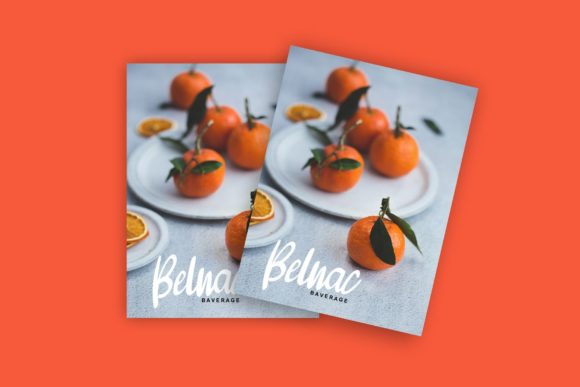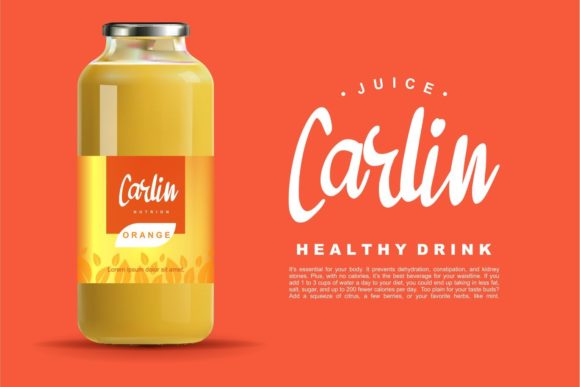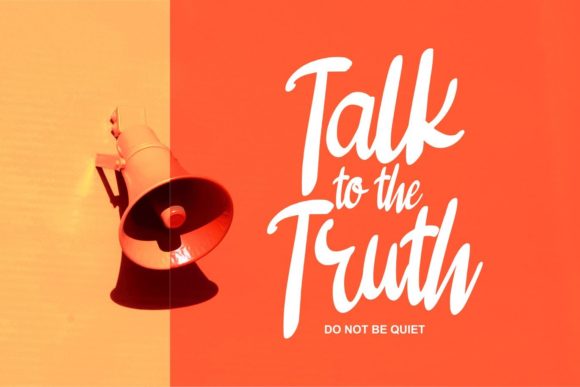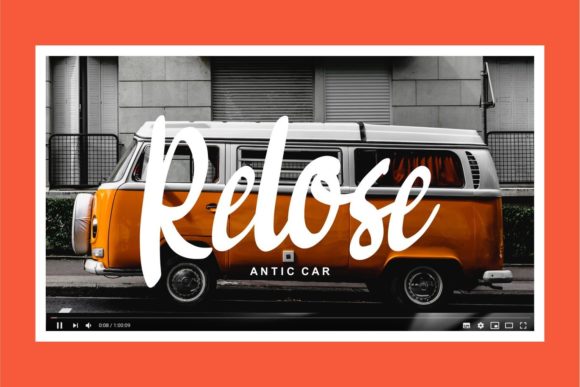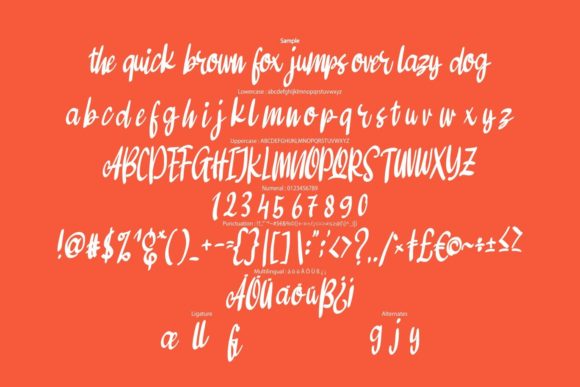
Amenty Script Font: Elevate Your Designs with a Timeless Handwritten Touch
In the world of typography, a well-chosen font can make all the difference in transforming a design from ordinary to extraordinary. For designers and crafters looking to add a personal touch to their creations, Amenty Script font is an excellent choice. This lovely and timeless handwritten font is perfect for creating eye-catching logos, branding, and quotes that capture the essence of elegance and sophistication.
The Unique Charm of Amenty Script
What sets Amenty Script apart from other fonts is its unique and beautiful touch. Every letter is carefully crafted to exude a sense of warmth and personality, making it an ideal choice for designers who want to add a human touch to their designs. The font’s handwritten nature gives it a distinctive, one-of-a-kind feel that is sure to make your designs stand out from the crowd.
Amenty Script font is incredibly versatile, making it suitable for a wide range of design applications. Whether you’re creating a logo, branding materials, or quotes, this font is sure to impress. Its elegant and cursive nature makes it perfect for:
- Logos: Create a lasting impression with a custom logo that showcases your brand’s personality.
- Branding: Develop a consistent visual identity that reflects your brand’s values and style.
- Quotes: Add a touch of sophistication to your inspirational quotes and sayings.
Why Choose Amenty Script Font?
With so many fonts available, why choose Amenty Script? Here are just a few reasons why designers and crafters love this font:
- Timeless appeal: Amenty Script’s classic handwritten style ensures that your designs will remain timeless and relevant for years to come.
- Unique character: Each letter has a distinct personality, making your designs truly one-of-a-kind.
- Elegant and sophisticated: Amenty Script exudes refinement and poise, perfect for designs that require a touch of luxury.
- Easy to read: Despite its elegant nature, Amenty Script remains highly legible, making it suitable for a wide range of applications.
Tips for Using Amenty Script Font
To get the most out of Amenty Script font, here are a few tips to keep in mind:
- Pair with contrasting fonts: Combine Amenty Script with a clean, sans-serif font to create visual interest and hierarchy.
- Experiment with colors: Try pairing Amenty Script with a range of colors to find the perfect match for your design.
- Pay attention to spacing: Make sure to adjust the spacing between letters to ensure optimal readability and aesthetics.
In conclusion, Amenty Script font is a beautiful and timeless handwritten font that is sure to elevate your designs to new heights. Its unique charm, elegant nature, and versatility make it an excellent choice for designers and crafters looking to add a personal touch to their creations. Whether you’re creating logos, branding materials, or quotes, Amenty Script font is the perfect choice for those who value sophistication and refinement.